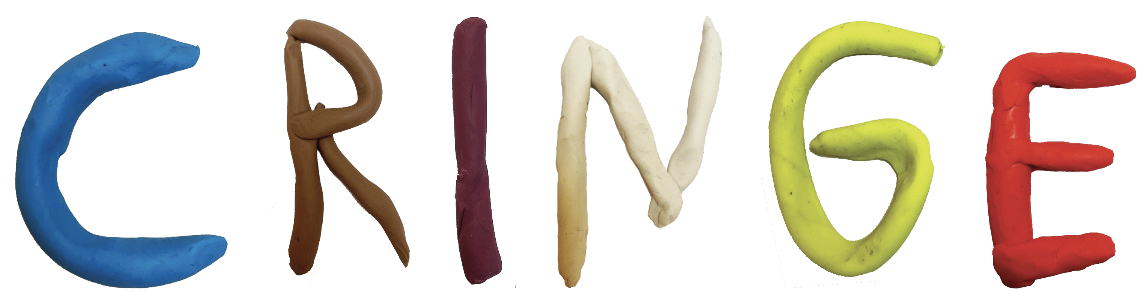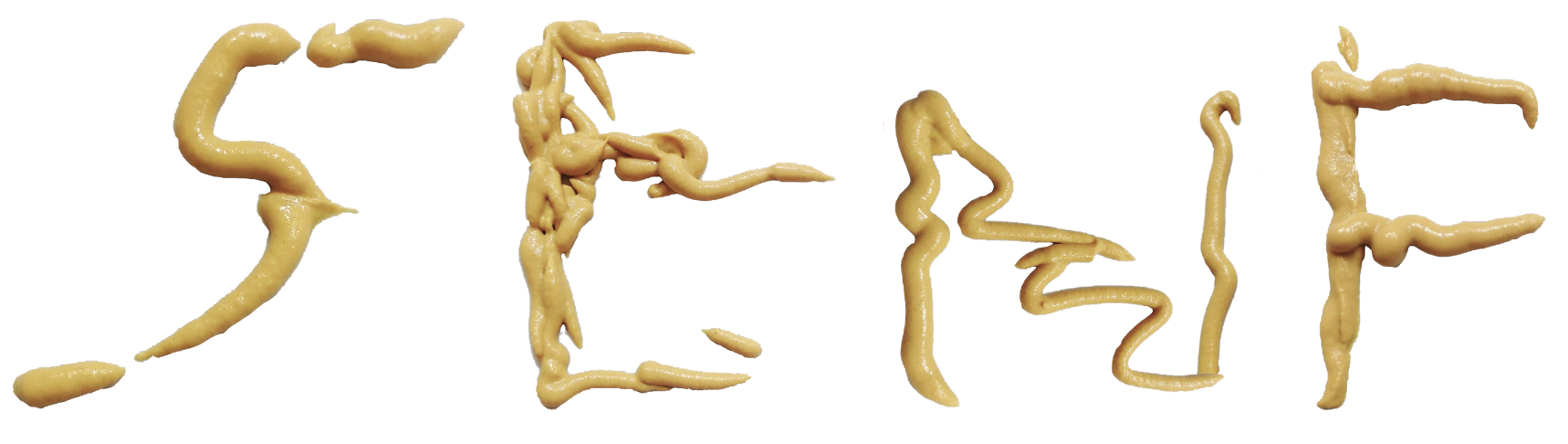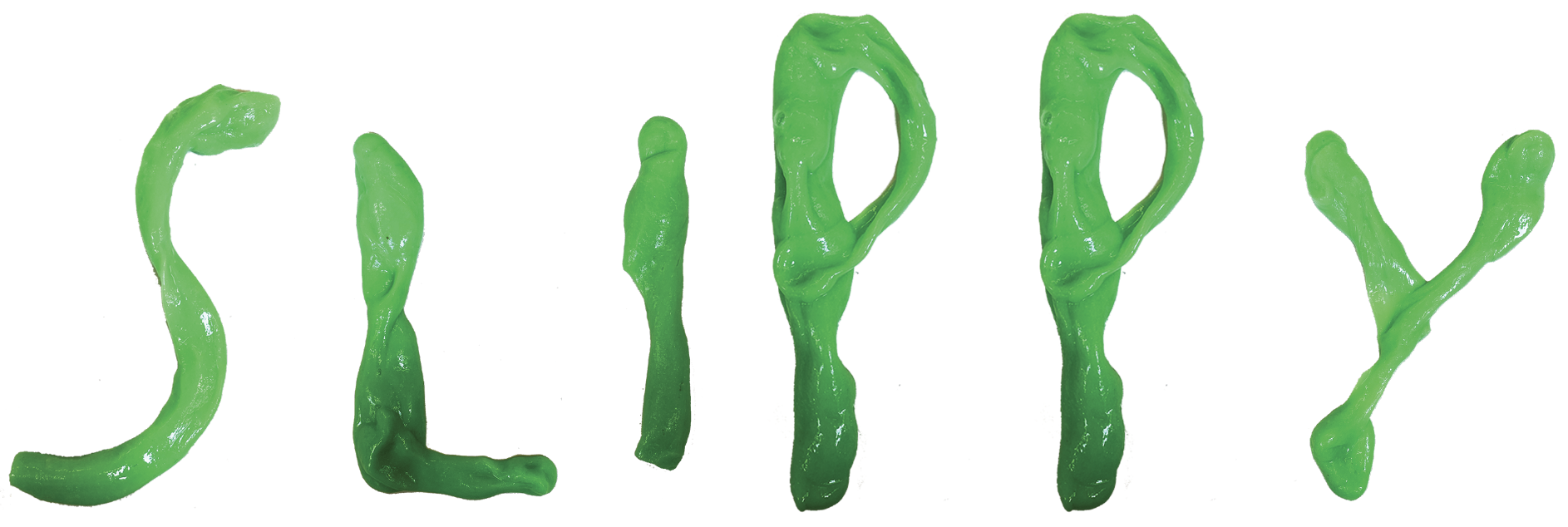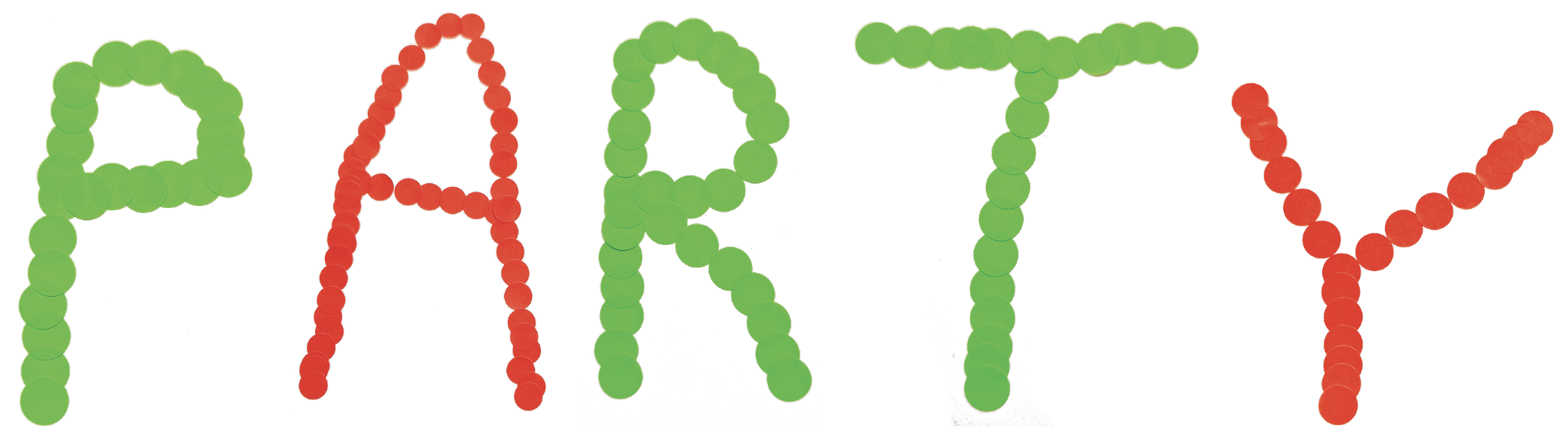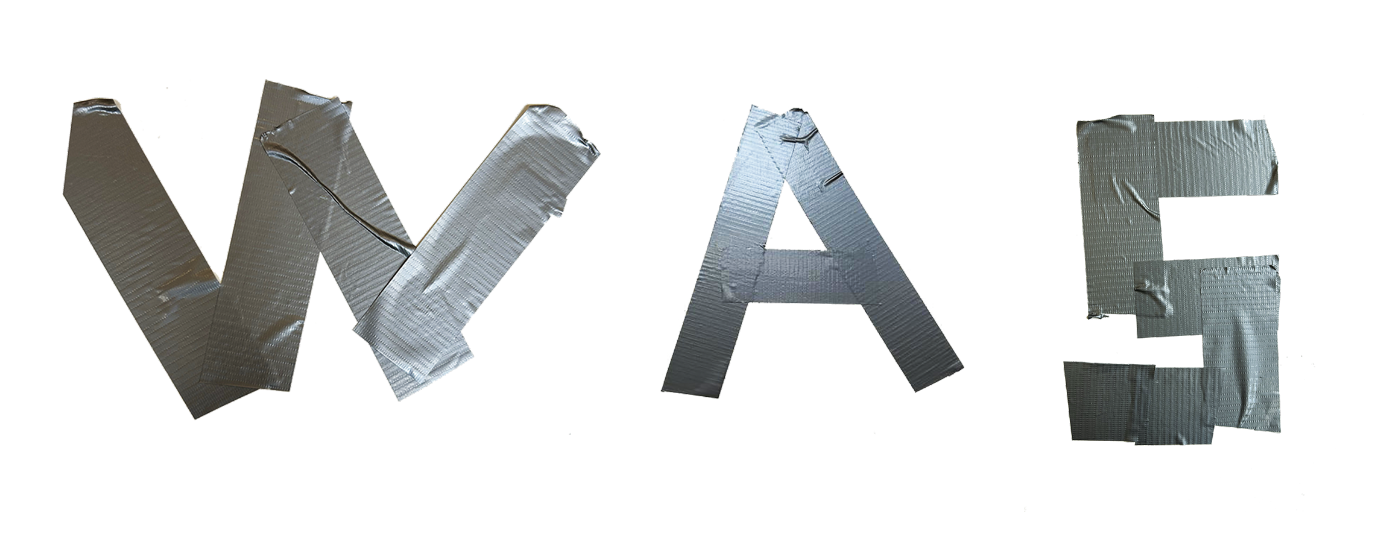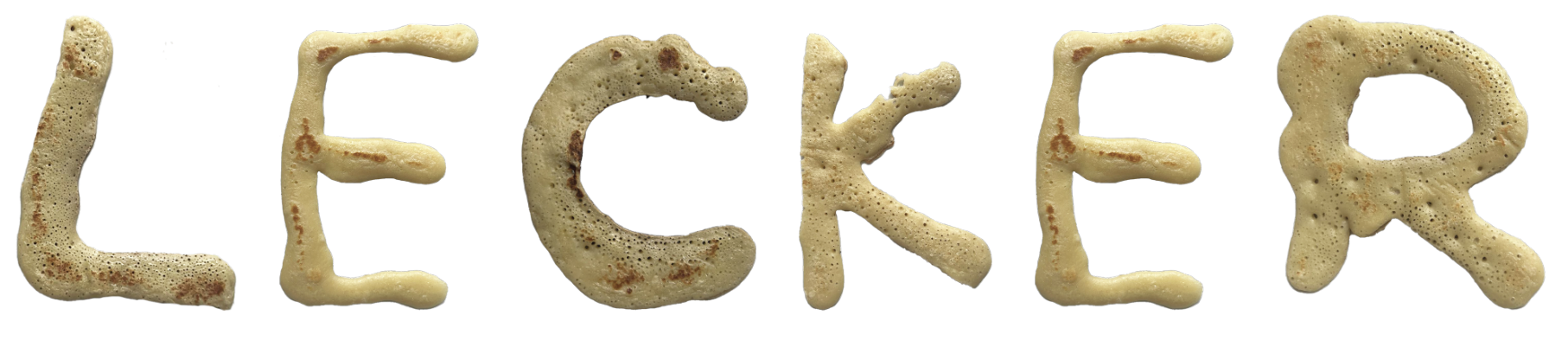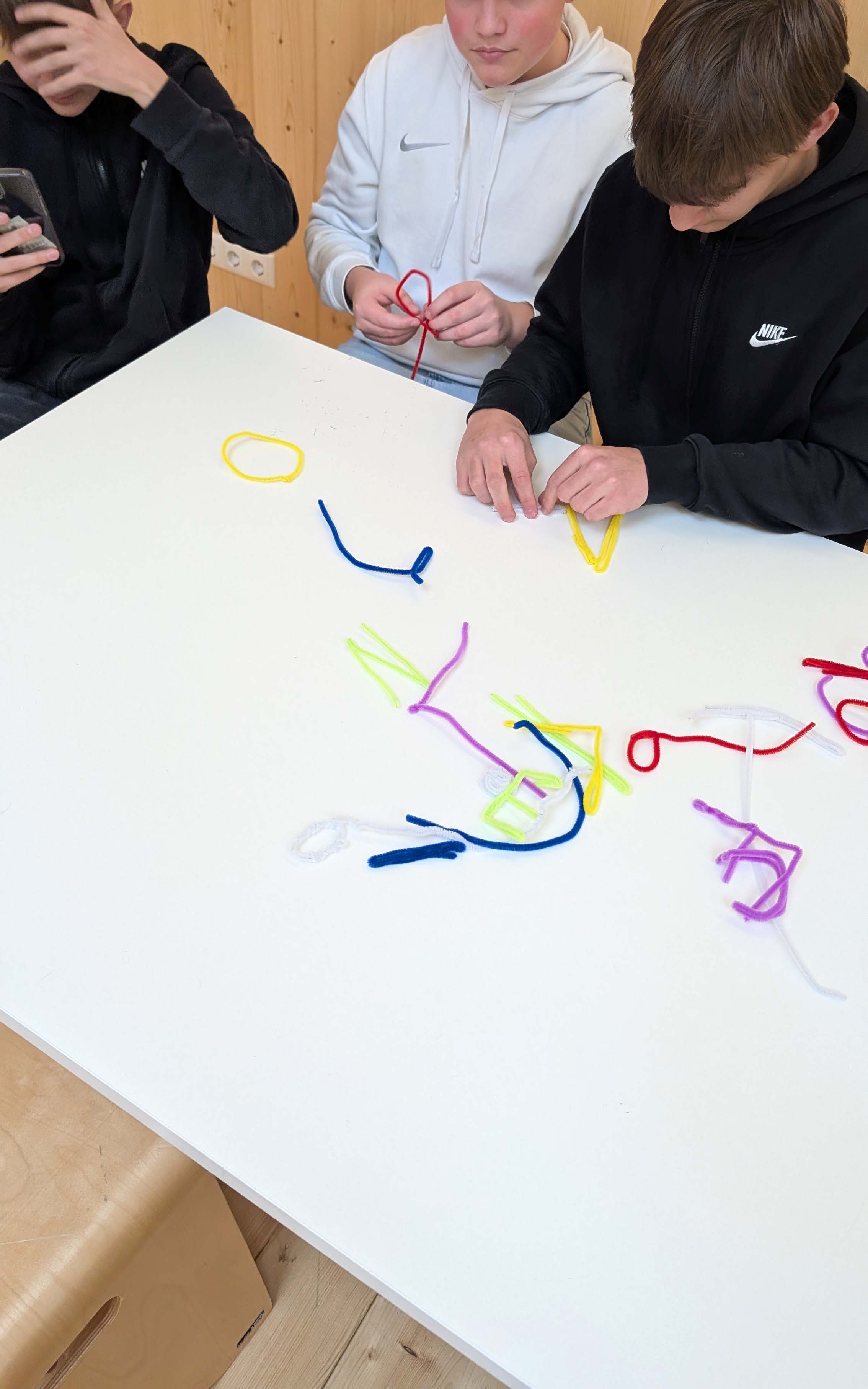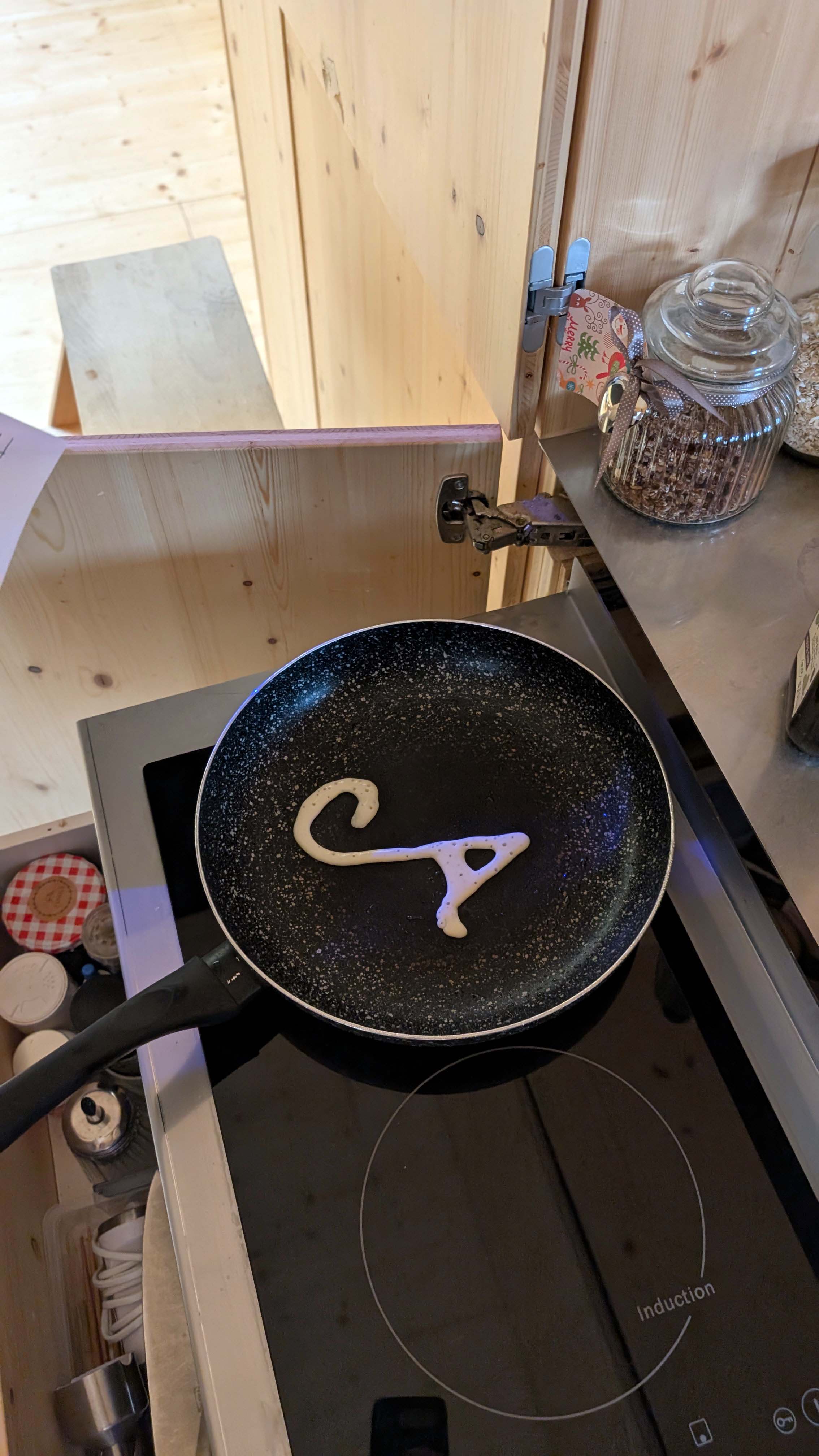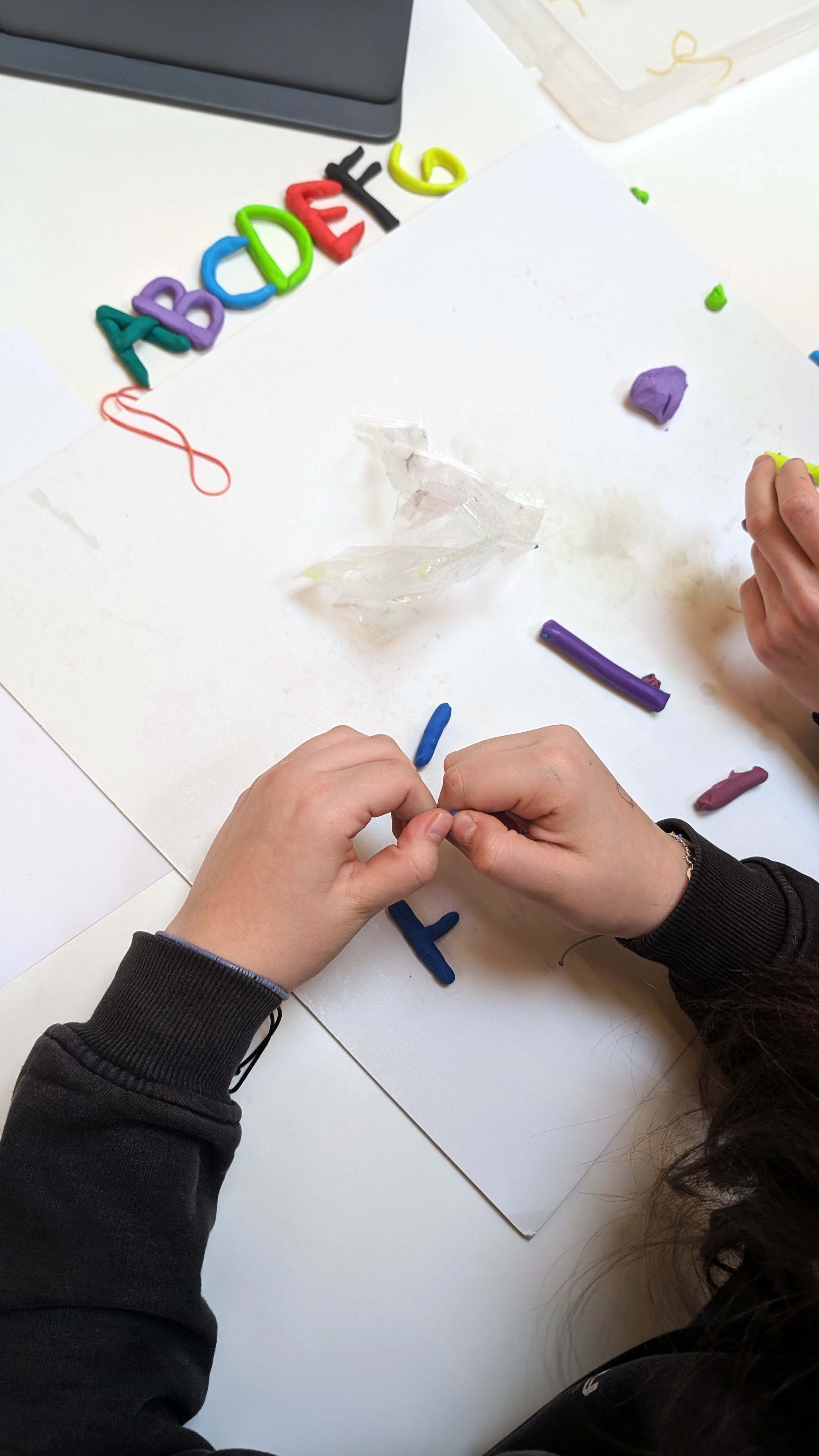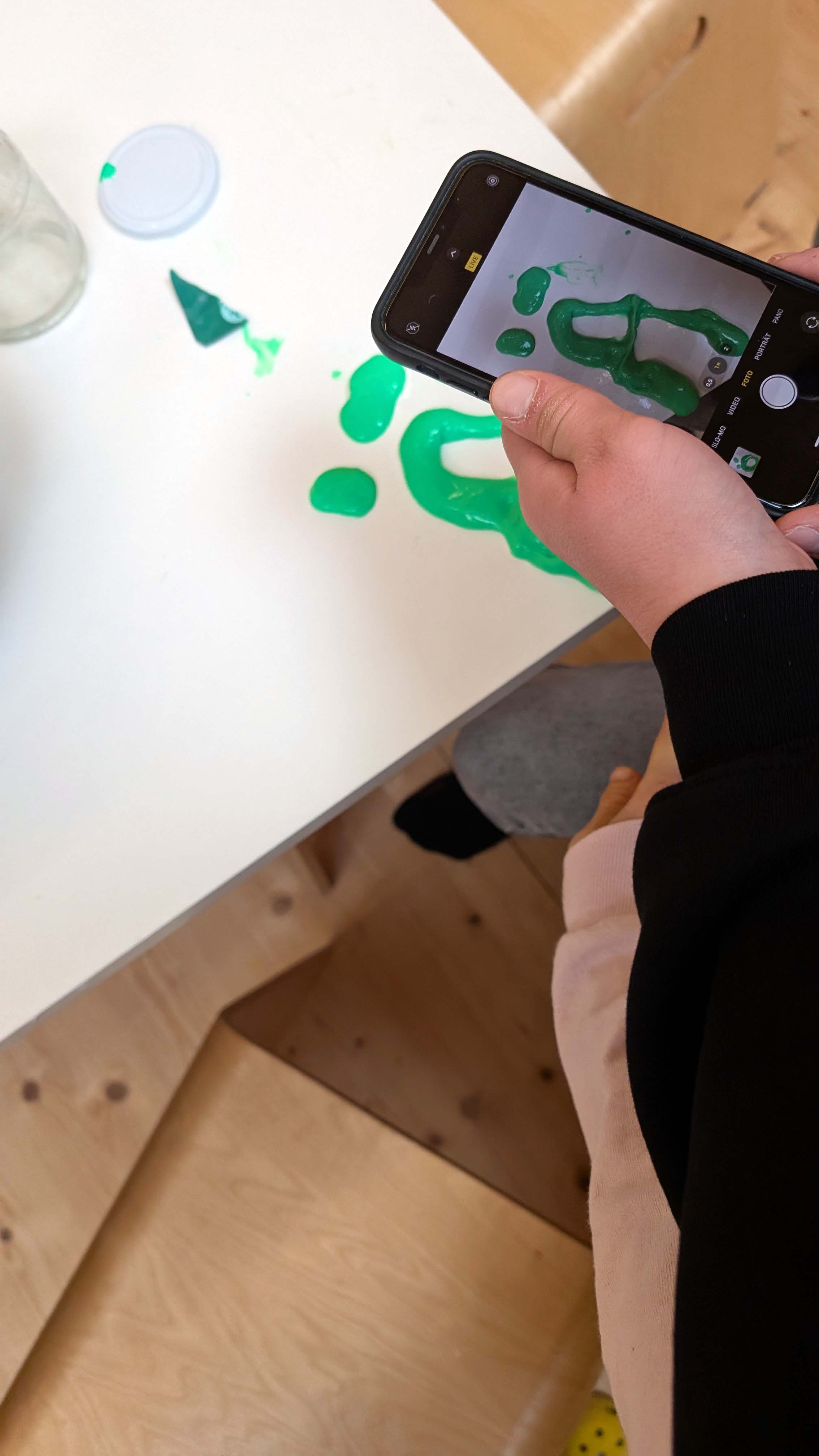
PLAY-DOH is the only font that’s colorful, squishy and totally non-edible: perfect for stress relief!
ORIGINAL TASTE Just eat it! Bitter, bold and yellow. Kind of delicious
DRIPPY,  be careful not to slip on drippy. With slippy, you have drippy
FOAM is good as a font, but some numbers are missing
HOT LIKE PEPER, a messy and thin font made with chilli sauce
PARTY-MOOD, dot dot dot. No party without confetti
TAPE, not all in, letters but no numbers, not even parentheses (:
CRAZY PASTA is good, really good.  Edible font for all occasions
WEDZE PIPE CLEANER, obviously clean and more
PACAKES, almost all letters included, rather delicious
Typefaces created by students of the Stadtschule Schlüchtern
1. PLAY-DOH
PLAY-DOH is the only font that’s colorful, squishy, and absolutely, unmistakably non-edible, even though it really does look good enough to snack on. Designed to channel the joy of pressing your thumbs into a fresh lump of dough, this typeface brings stress relief straight into your layouts. Perfect for posters, celebratory emails, and not boring newsletters, or any situation that could use a dose of playful chaos, PLAY-DOH adds texture, volume, and a sense of handmade silliness.